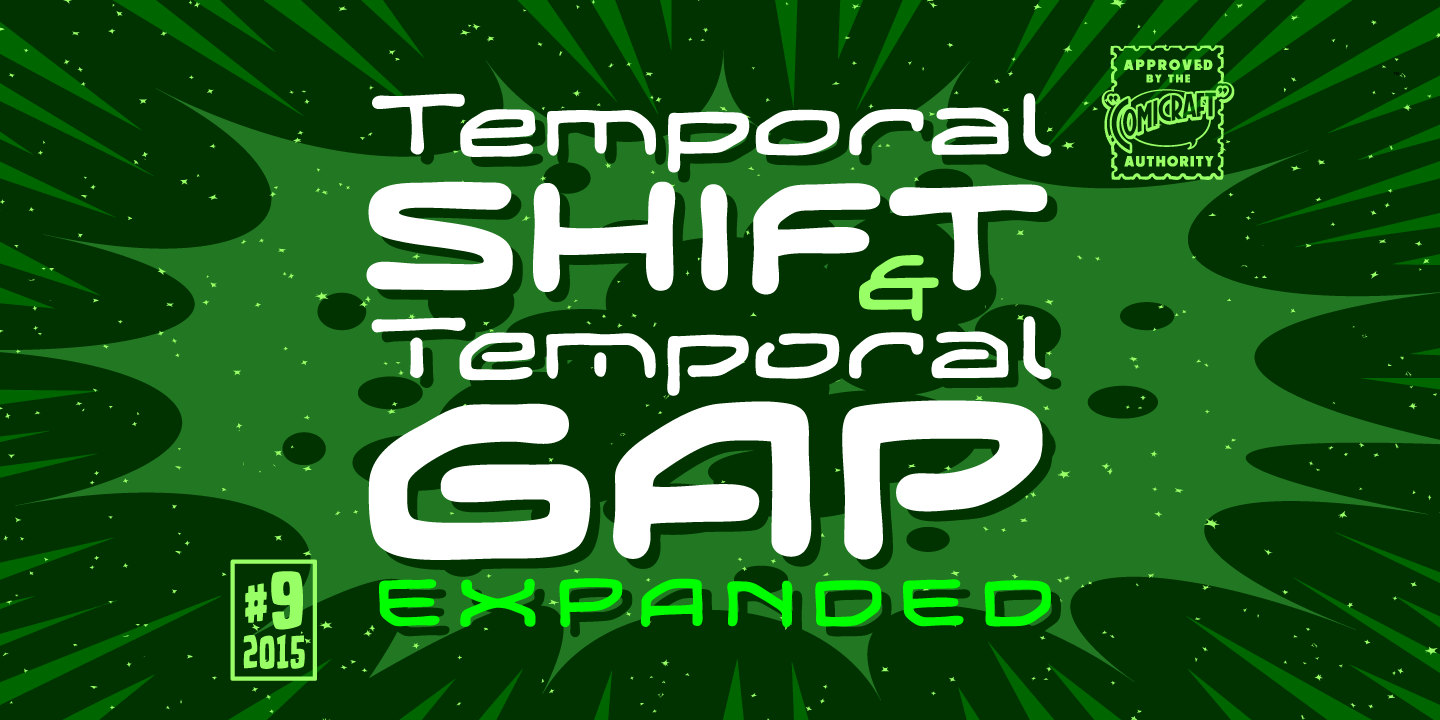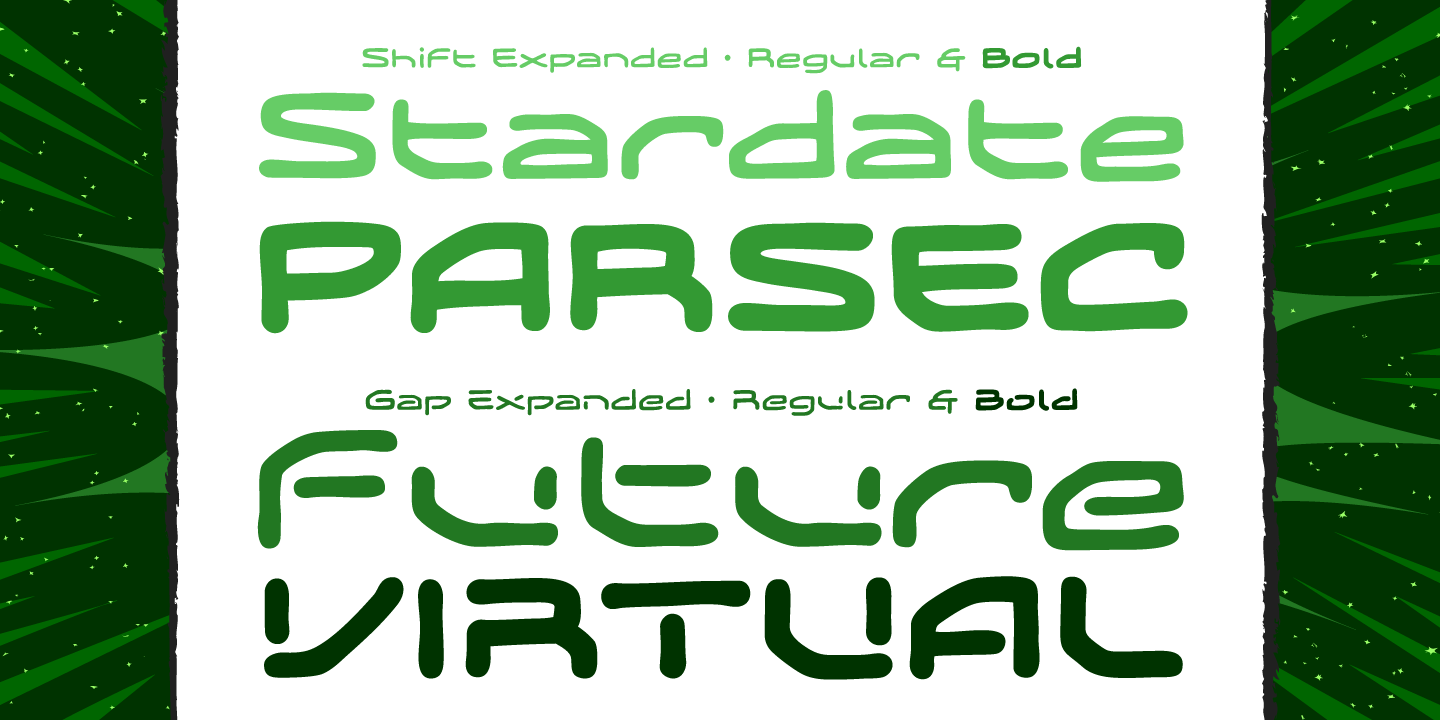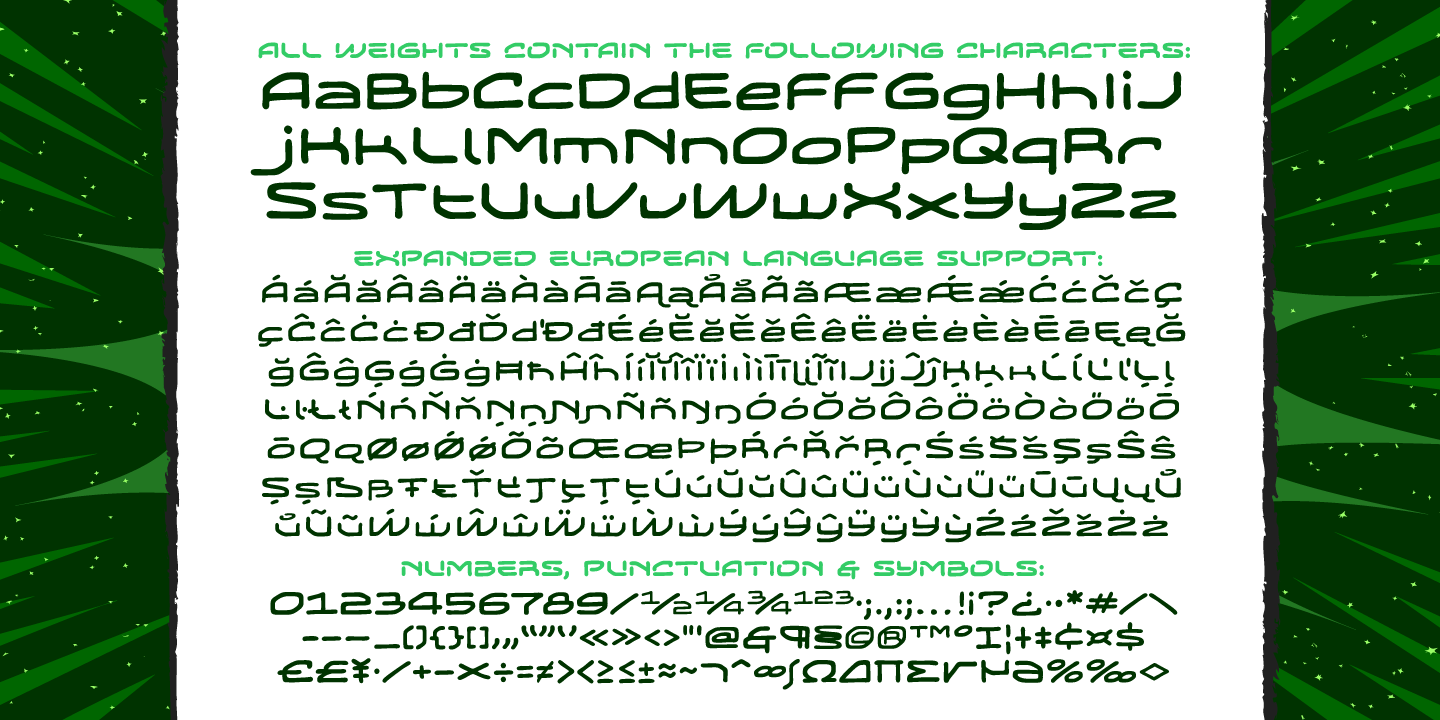
Temporal Shift & Gap Expanded
Font Family by Comicraft Fonts
Temporal Shift & Gap Expanded is a 4-style sans serif family from Comicraft Fonts with a wide, futuristic look and a playful comic-tech edge. Its expanded proportions, rounded geometry, and uniform stroke width give it a clean, smooth presence that feels bold, digital, and distinctly sci-fi.
With both Shift and Gap designs included, plus bold companions, this family gives you a flexible set of display options for attention-grabbing type. It’s a strong fit for posters, branding, packaging, signage, social graphics, and other headline work where you want modern letterforms with a casual, energetic attitude.
The overall effect is confident and approachable rather than cold, balancing geometric structure with a fun, stylized rhythm. If you need wide letterforms that feel modern, strong, and a little offbeat, this set brings that futuristic flavor into focus.